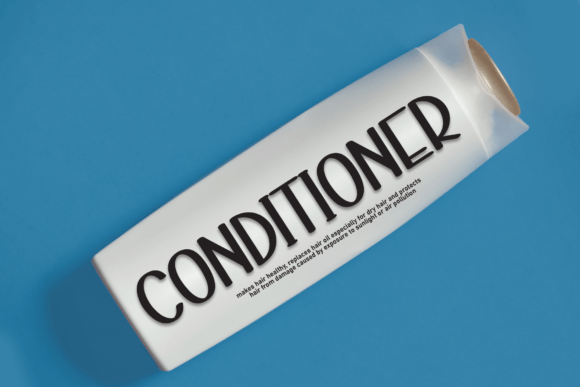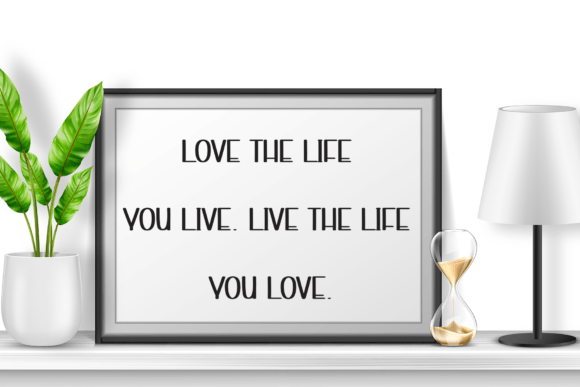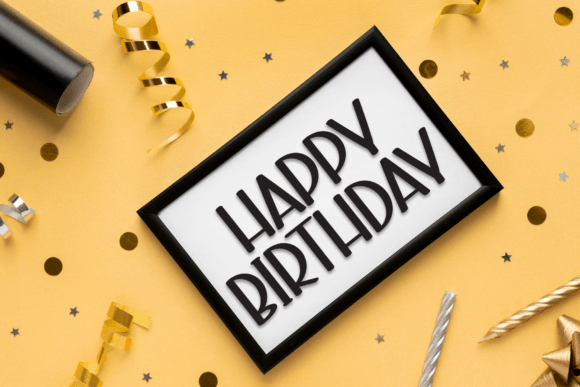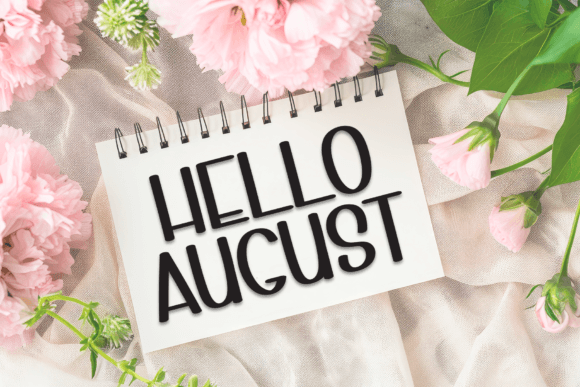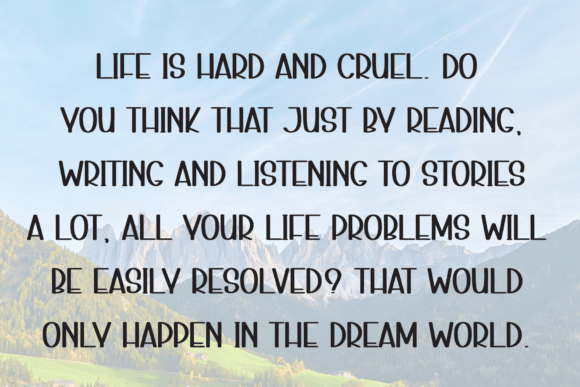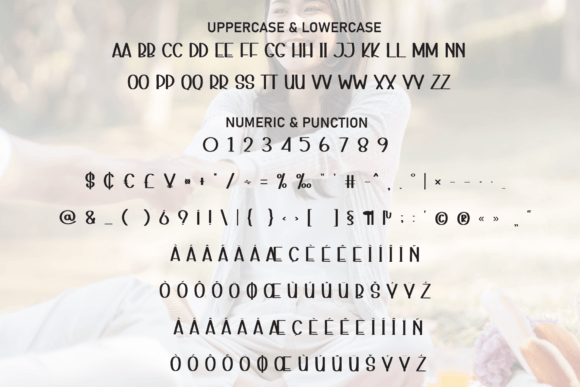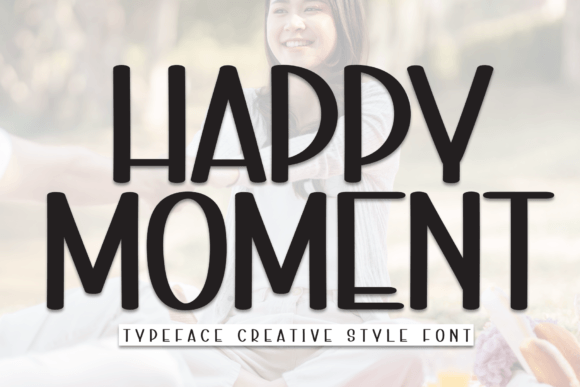
Introducing Happy Moment Font: The Perfect Choice for a Relaxed and Friendly Vibe
Are you looking for a font that can add a personal touch to your designs? Do you want to create a warm and authentic feel in your projects? Look no further than Happy Moment Font, a casual handwritten font that captures the essence of a relaxed and friendly vibe. With its natural, flowing strokes, Happy Moment Font is ideal for personal projects, social media, and invitations, bringing an effortless, charming touch to any design.
The Characteristics of Happy Moment Font
Happy Moment Font is a beautifully crafted handwritten font that exudes a sense of warmth and approachability. Its natural, flowing strokes give it a relaxed and friendly feel, making it perfect for designs that require a personal touch. The font’s casual style is easy to read and adds a touch of whimsy to any design, making it ideal for a wide range of projects.
Uses of Happy Moment Font
Happy Moment Font is a versatile font that can be used in a variety of design projects, including:
- Personal projects: Add a personal touch to your journals, planners, and other personal projects with Happy Moment Font.
- Social media: Use Happy Moment Font to create engaging social media posts that stand out from the crowd.
- Invitations: Create beautiful and unique invitations for special occasions, such as weddings, birthdays, and baby showers.
- Crafting: Happy Moment Font is perfect for crafters who want to add a personal touch to their projects, such as handmade cards, gift tags, and scrapbooking.
Benefits of Using Happy Moment Font
There are many benefits to using Happy Moment Font in your designs, including:
- Unique and personalized: Happy Moment Font adds a unique and personalized touch to any design, making it stand out from the crowd.
- Easy to read: The font’s natural, flowing strokes make it easy to read, even at small sizes.
- Versatile: Happy Moment Font can be used in a wide range of design projects, from personal projects to commercial designs.
- Time-saving: With Happy Moment Font, you can create beautiful designs quickly and easily, saving you time and effort.
Tips for Using Happy Moment Font
Here are some tips for using Happy Moment Font in your designs:
- Pair it with other fonts: Happy Moment Font pairs well with other fonts, such as sans-serif fonts and script fonts.
- Use it in combination with images: Happy Moment Font looks great in combination with images, especially those with a natural or whimsical feel.
- Experiment with colors: Happy Moment Font looks great in a variety of colors, from bright and bold to soft and pastel.
- Keep it simple: Don’t be afraid to keep your design simple and clean, allowing Happy Moment Font to take center stage.
In conclusion, Happy Moment Font is a beautiful and versatile font that is perfect for designers and crafters who want to add a personal touch to their projects. With its natural, flowing strokes and relaxed, friendly vibe, Happy Moment Font is ideal for a wide range of design projects, from personal projects to commercial designs. Whether you’re looking to create a unique and personalized design or simply want to add a touch of whimsy to your project, Happy Moment Font is the perfect choice.